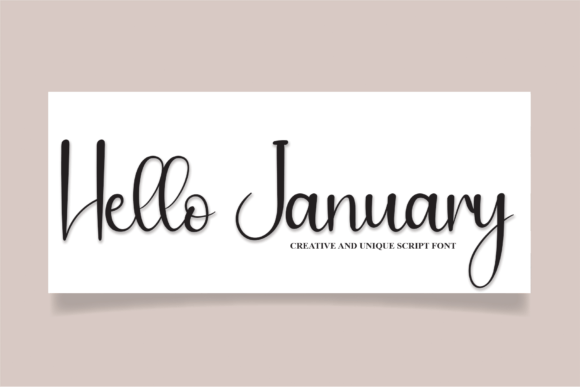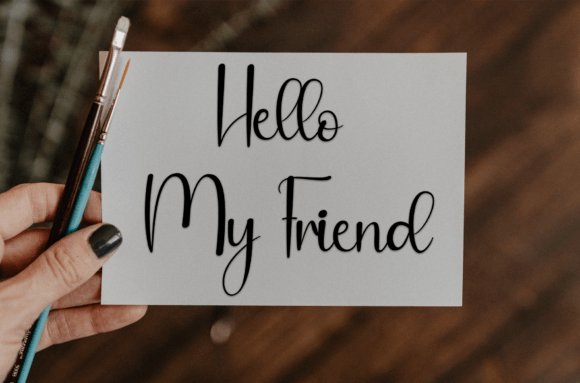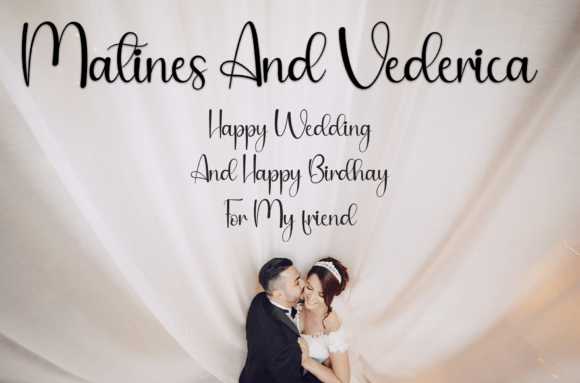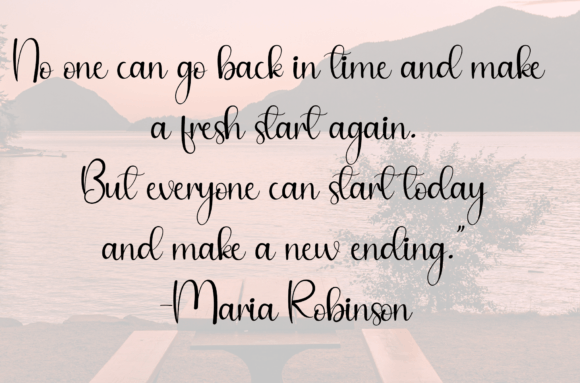
Welcome a New Look with Hello January Handwritten Font
The Hello January Handwritten Font is a warm, joyful, and lovingly designed script that adds a personal feel to any project. With its smooth curves and relaxed style, this font is perfect for creatives who want to communicate joy, romance, and friendliness through their design work.
Whether you’re preparing wedding invitations or crafting seasonal campaigns, Hello January helps your message feel authentic and heartfelt.
Ideal for Invitations, Greeting Cards, and More
One of the best things about Hello January is its incredible versatility. It’s a top choice for wedding invitations, holiday cards, and personalized messages. Whether you’re crafting a romantic love note or a festive announcement, this font adds emotional warmth to every word.
It also works wonderfully for event branding, handmade product packaging, and small business logos. If your brand values approachability and charm, Hello January is a perfect fit.
A Relaxed Script with Personality
What makes the Hello January Font special is its sweet handwritten charm. Each letter flows naturally with gentle curves and soft angles, giving the impression of a heartfelt note written by hand. Yet, it retains a clean structure, ensuring that the text remains easy to read across various formats and sizes.
This balance between playfulness and polish makes it suitable for both informal and semi-formal projects. Whether used in headlines or supporting text, Hello January always delivers warmth and sincerity.
Flawless in Print and Digital Formats
Designed for flexibility, Hello January looks great in print materials like stationery, T-shirts, gift tags, and greeting cards. It also translates beautifully to the digital space, enhancing Instagram posts, Pinterest graphics, blog headers, and Etsy product images.
For best results, pair it with a simple sans-serif typeface to provide contrast and structure in your design layouts.
Why Choose Hello January Handwritten Font?
Here’s why this font is a favorite among designers:
Sweet and relaxed handwritten style
Clear readability at all sizes
Ideal for romantic and seasonal designs
Perfect for both digital and print use
Bring Joy and Heart to Every Design
In summary, the Hello January Handwritten Font is the perfect typeface for those looking to add a soft, joyful, and personal touch to their work. From wedding stationery to cheerful social media posts, this font will make your designs stand out with warmth and style.
If you’re in search of a sweet and approachable script, Hello January is your go-to handwritten font for creative expression.